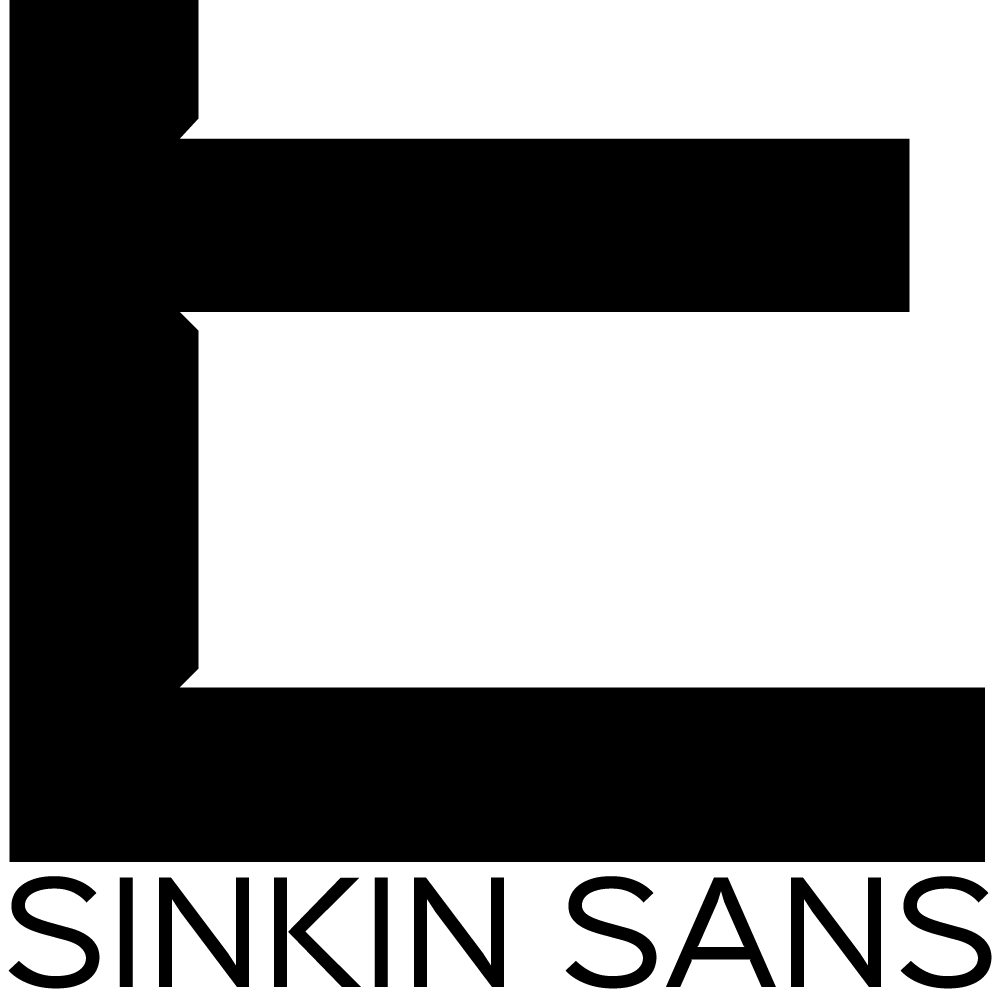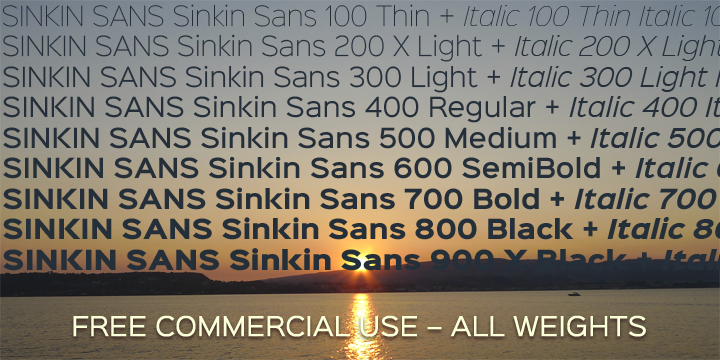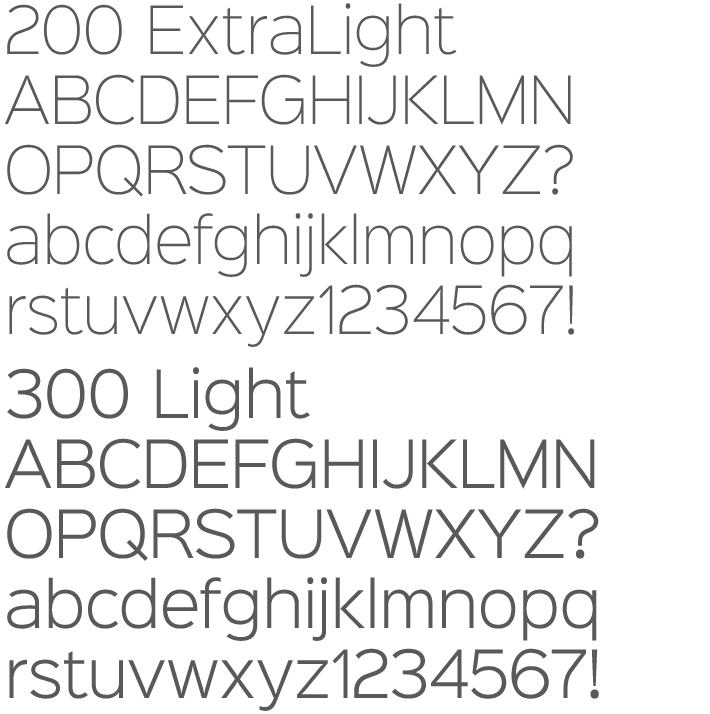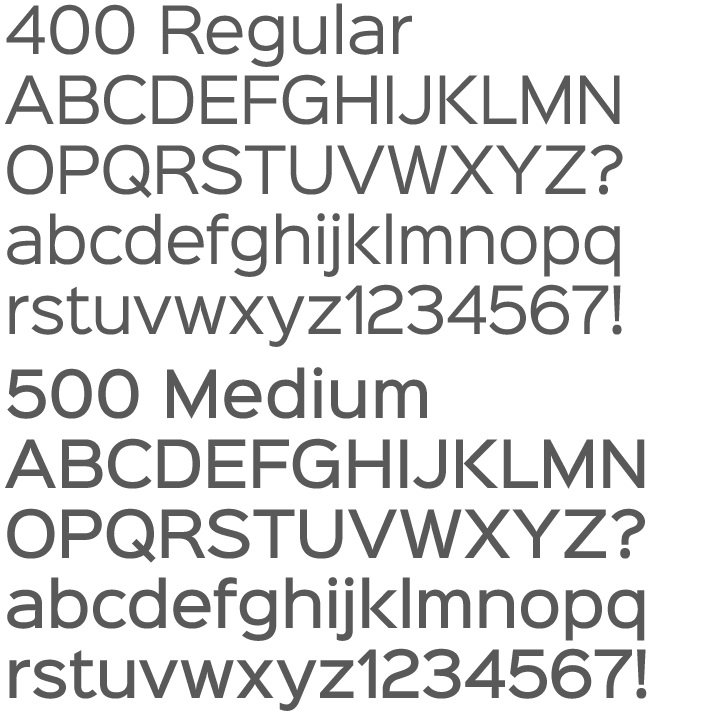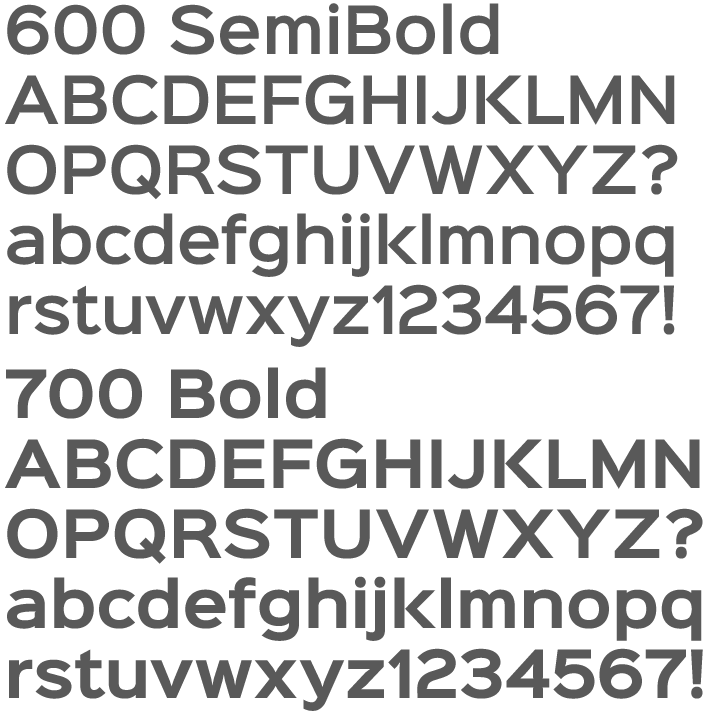
Sinkin Sans
Sinkin Sans is a simple, pleasant, luxuriously proportioned and easy to read sans-serif, supplied in all 9 standard web weights, 100 to 900, plus italics, so the face is a comprehensive illustration of the CSS web font numerical scale.
Sinkin Sans is designed with tiny, inconspicuous notches that sink into verticals at the intersections of strokes, adding highlights to congested corners. The incisions make right angles appear sharper and improve definition in more intricate characters.
Also available, if space is at a premium, is Sinkin Sans Narrow, sensitively condensed for maximum legibility, and each weight is bundled with a complimentary Italic.